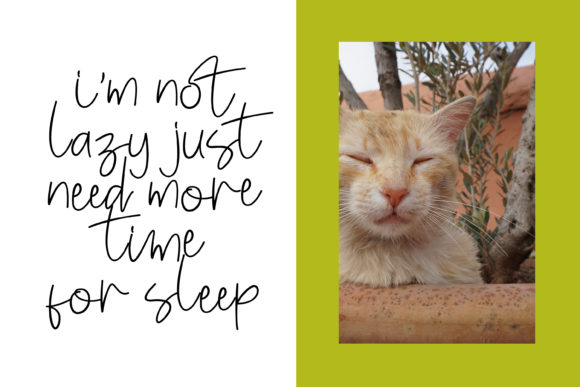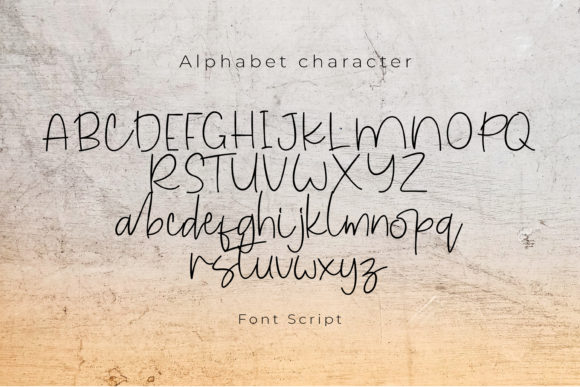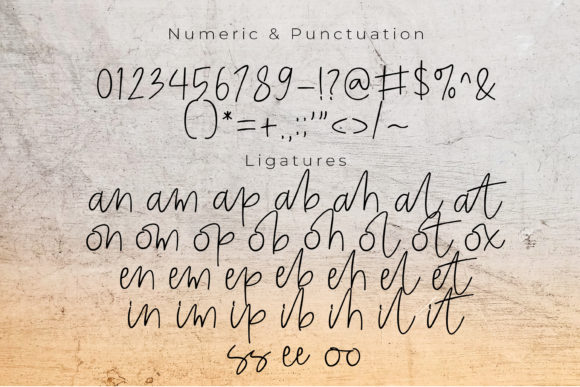
Introduction to Enjoy Cat Font
Remember that moment when you were working on your creative project, and the perfect font eluded you? You had an idea, but it just didn’t feel quite right without the right typography. That’s where the Enjoy Cat Font comes in – a beautiful, flowing handwritten font that can elevate your designs to new heights.
As a valuable resource for designers, the Enjoy Cat Font offers a unique blend of style and sophistication. Its masterful design makes it a standout choice for any project, whether you’re working on a logo, brochure, or social media graphics. With its high-quality lines and transparent background, this font is sure to make your designs stand out.
Key Features of Enjoy Cat Font
- High-quality design resource ideal for creative projects, including cat lovers and enthusiasts.
- Unique characteristics include playful and whimsical cat illustrations, making it perfect for adding a touch of personality to creative projects.
- Designed to be easy to read and use, making it an excellent choice for designers and artists working on various creative projects.
Honest Review: Enjoy Cat Font
I recently stumbled upon the Enjoy Cat Font while searching for a fun design resource for a creative project. I was excited to dive in and see what this font had to offer.
- ✨ Unique and playful design: The Enjoy Cat Font is perfect for adding a touch of whimsy to any project.
- ✨ High quality: The font is crisp and clear, making it ideal for digital and print use.
- ⚠️ Limited language support: The Enjoy Cat Font may not be compatible with certain languages or character sets.
- ⚠️ Limited customization options: While the font is fun and playful, it may not be suitable for more formal or professional projects.
Overall, I’m impressed with the Enjoy Cat Font. It’s a great resource for designers looking to add some personality to their projects. While it may have some limitations, it’s a great option for those who want a high-quality, free font with a unique design.
Introduction to Enjoy Cat Font
Tips for Getting the Most Out of Enjoy Cat Font
To get the most out of Enjoy Cat Font, experiment with different font sizes, styles, and colors. You can also combine Enjoy Cat Font with other design elements to create unique and eye-catching designs.
Enjoy Cat Font is perfect for various creative projects, including social media graphics, blog posts, and marketing materials. Its high-quality design and transparent background make it an excellent choice for any design project.